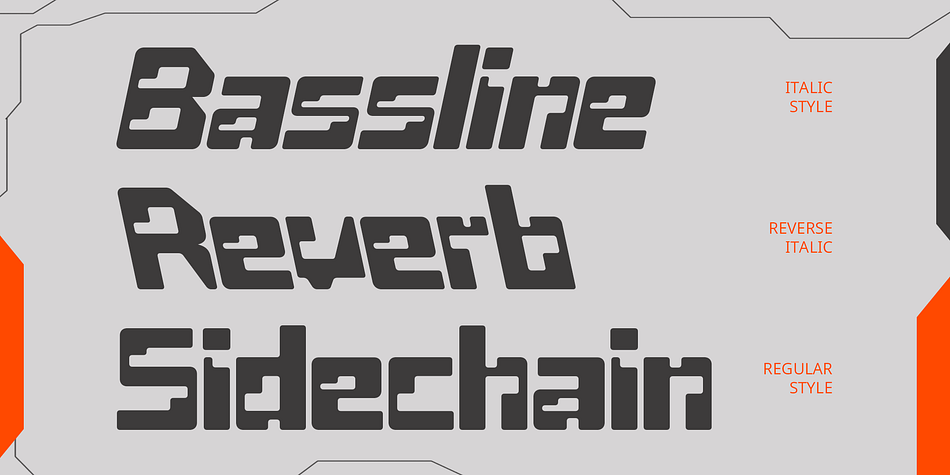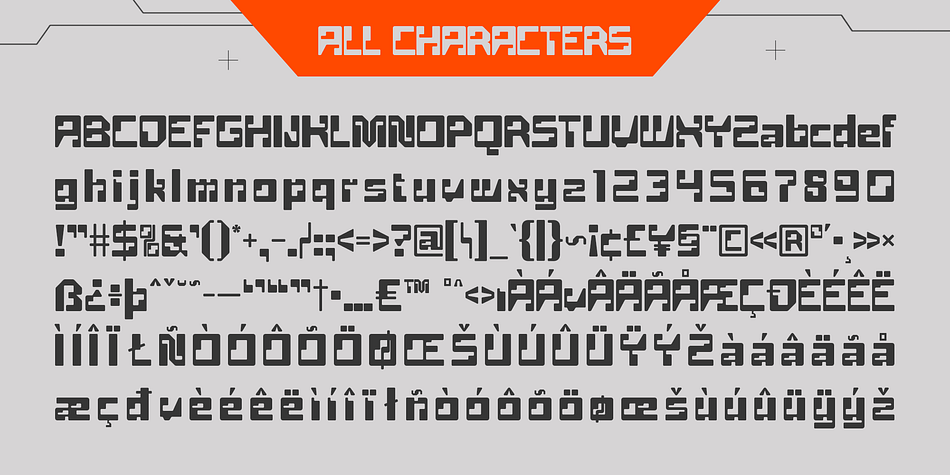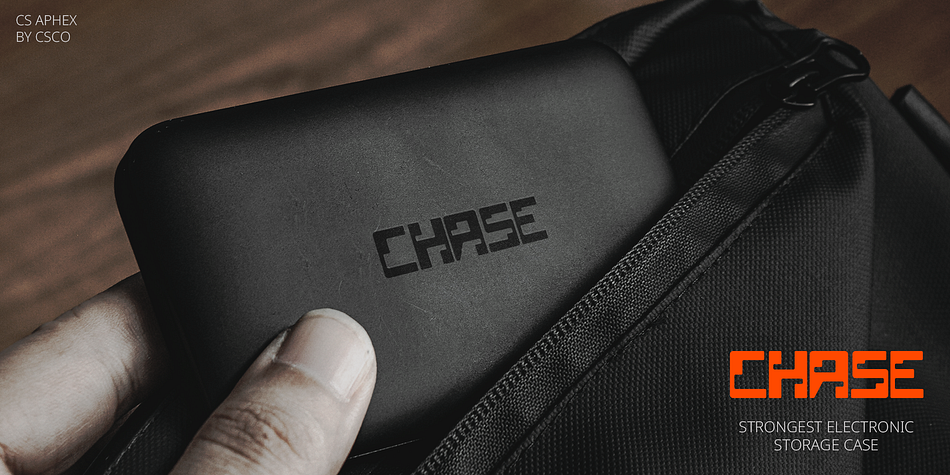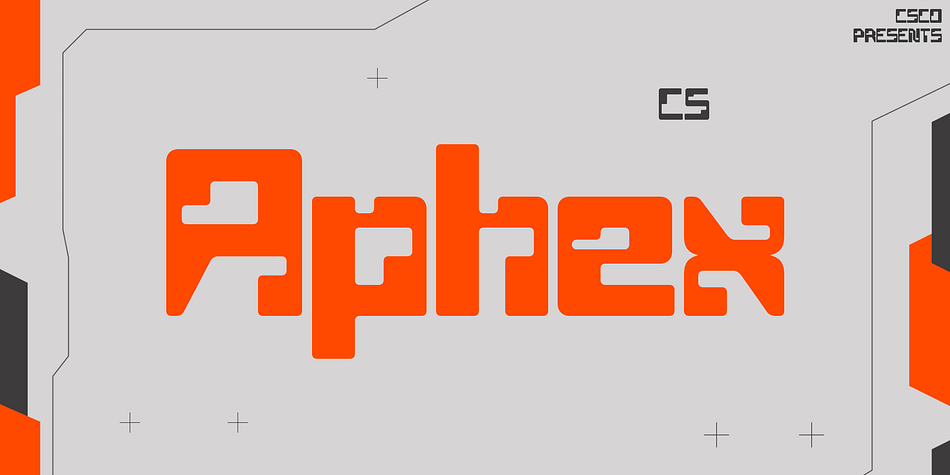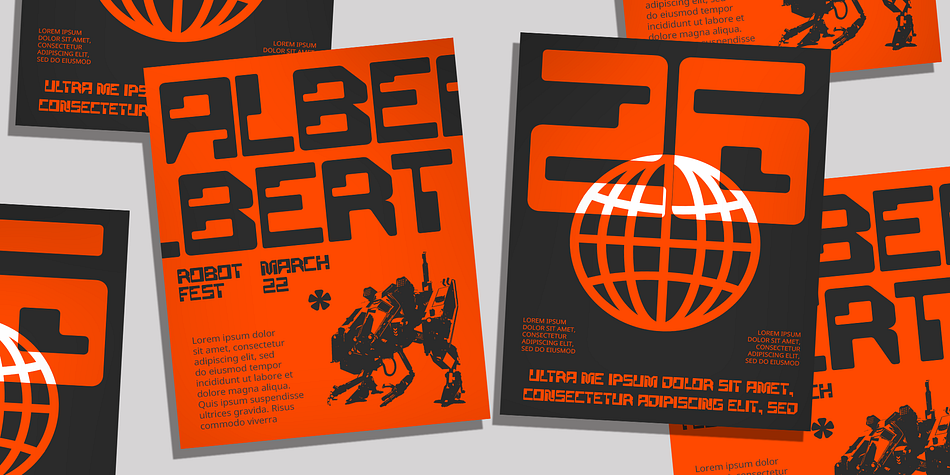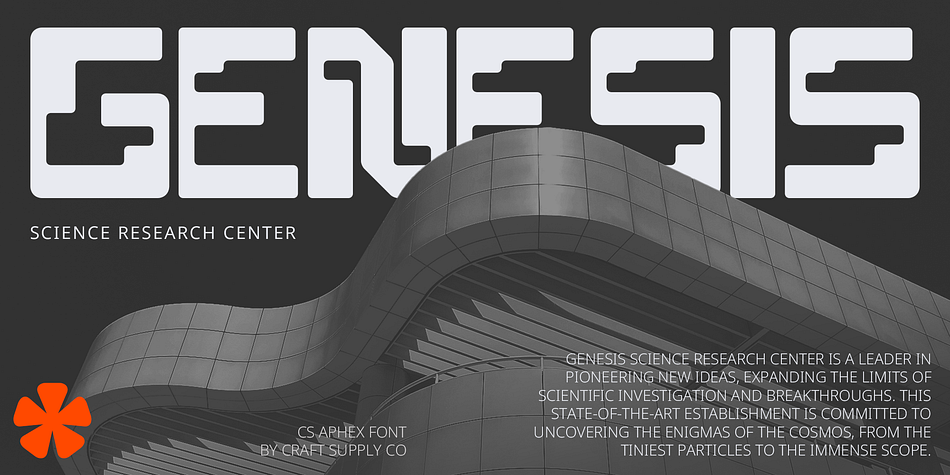
CS Aphex
CS Aphex is a display sans font family. This typeface has three styles and was published by Craft Supply Co.
CS Aphex Font: Tech Display Font
Futuristic and Innovative Design
CS Aphex is a modern display font that embodies a tech-inspired aesthetic with sleek, geometric forms and sharp lines. Its design captures a sense of futurism and innovation, making it ideal for projects that demand a cutting-edge and forward-thinking appearance.
High-Tech Aesthetic
With its emphasis on clean, precise shapes, CS Aphex exudes a high-tech vibe, perfect for futuristic branding and digital applications. The font’s sophisticated lines and modern style ensure that it stands out in any design, conveying both creativity and technological advancement.
Perfect for Digital and Branding Applications
Whether used for futuristic branding, tech-focused promotional materials, or digital interfaces, CS Aphex brings a dynamic, modern edge to your projects. Its innovative design ensures a distinctive look that resonates with a sense of progress and innovation.